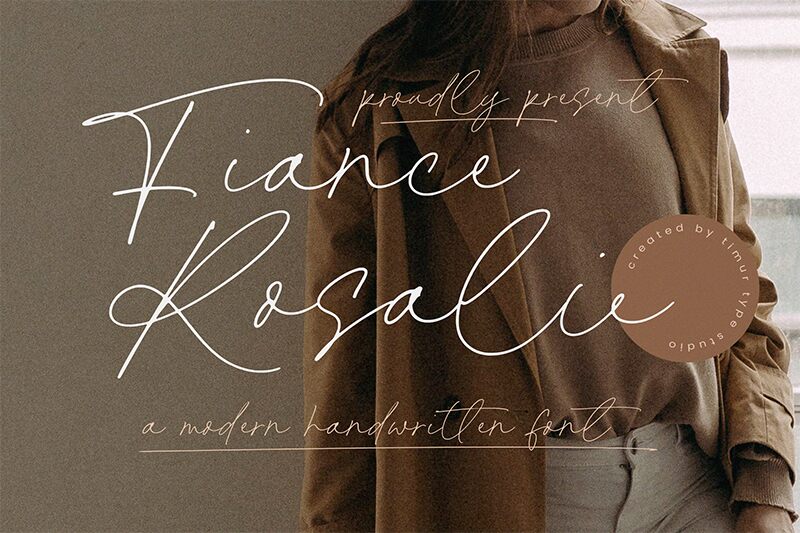
Fiance Rosalie font by Timur Type is a free handwritten font that beautifully captures elegance and modernity. Each letter flows seamlessly into the next, creating a fluid and organic appearance. Its casual yet expressive style makes it a perfect choice for contemporary applications that require a touch of personal flair.
This typeface is ideal for personal branding, wedding invitations, greeting cards, social media posts, product packaging, logos, blog headers, stationery design, and more. It adds a personal touch that enhances and elevates any creative project.
Fiance Rosalie is a modern handwritten font introduced by Timurtype Studio. This stylish and contemporary font is an excellent choice for your design projects. With its sleek and fluid letterforms, Fiance Rosalie combines elegance with a touch of informality. The clean lines and sophisticated curves give it a modern and chic aesthetic, making it perfect for adding a trendy twist to your branding materials, invitations, and social media graphics.
Whether you aim for a sleek and professional look or a casual and approachable vibe, the Fiance Rosalie font offers versatility and style. Embrace the modern sophistication of this handwritten font and elevate your designs with its polished charm.
Fiance Rosalie also supports multilingualism and features a full set of standard alphabet and punctuation.